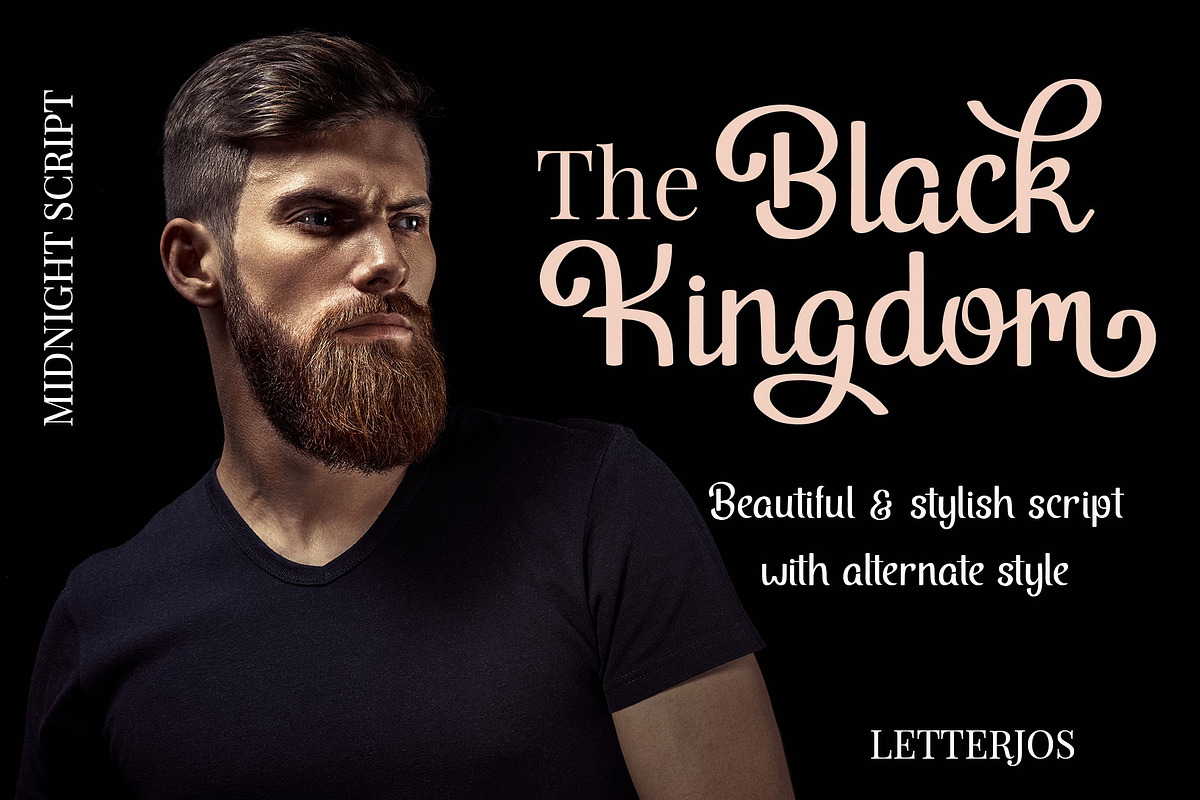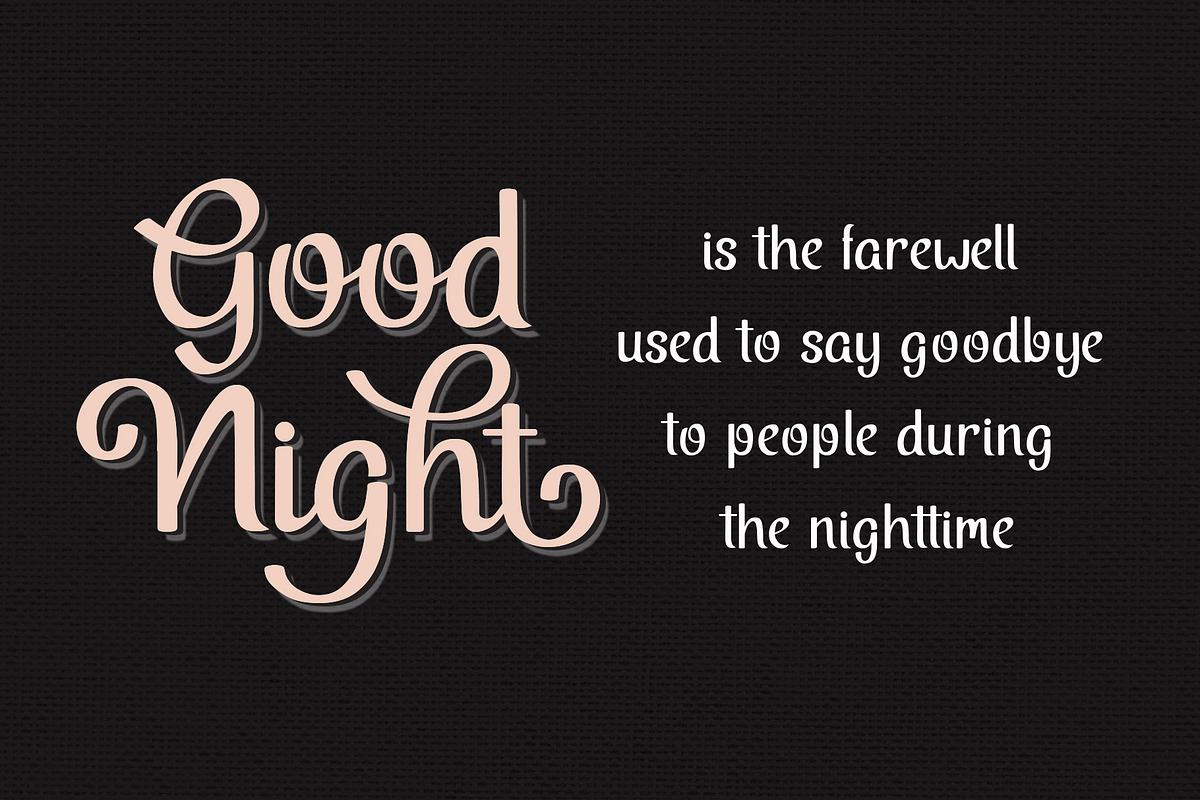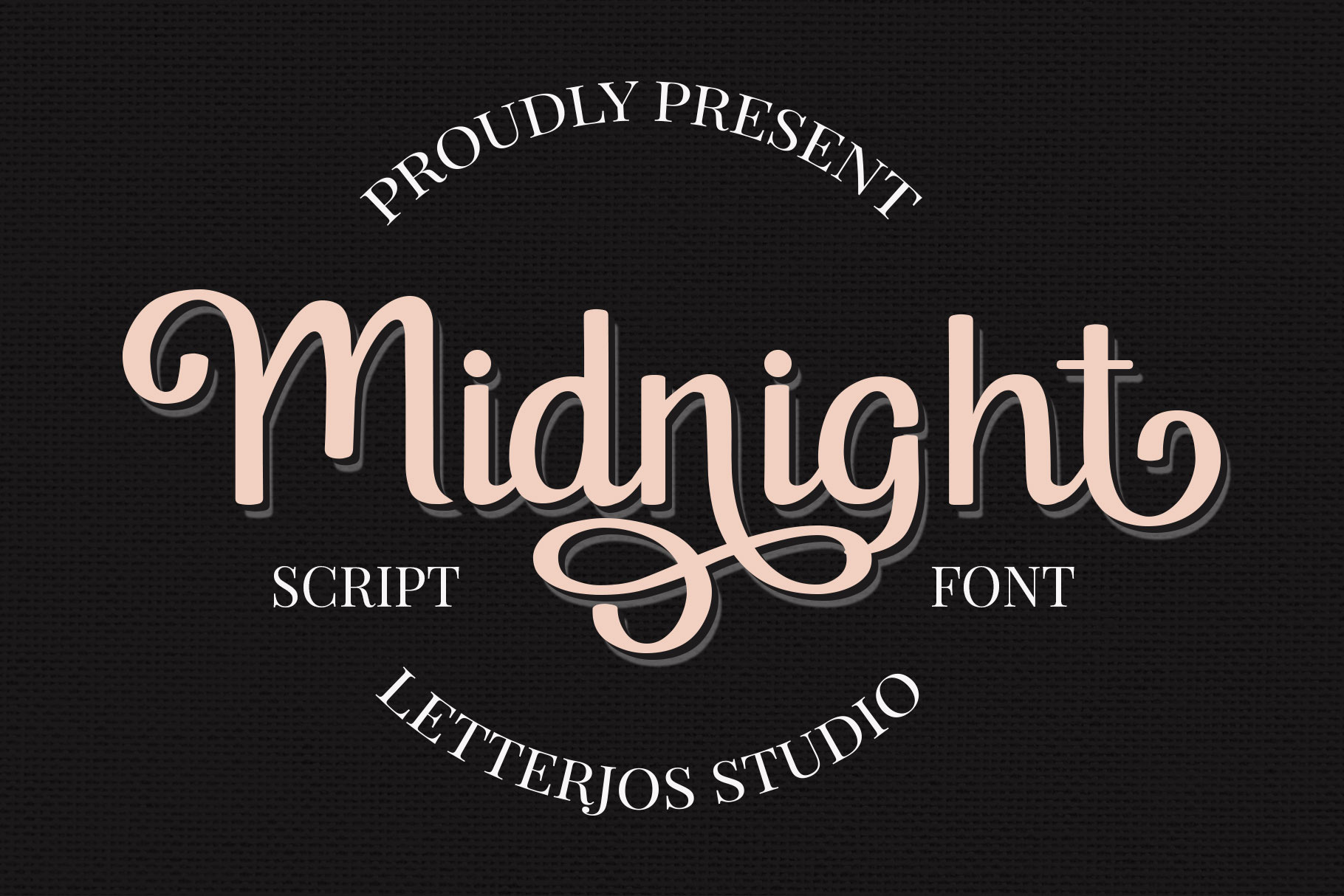
Midnight Script Font
Midnight is beautiful and elegant script font. This script font come with 2 style and alternate to make its style more beautiful, unique and elegant.
Midnight script font will be perfect for your projects such as quotes, apparel, poster design, personal branding, promotional materials, logotype, product packaging, etc.
Foreign Languages Support: ÀÁÂÃÄÅÇÈÉÊËÌÍÎÏÑÒÓÔÕÖØÙÚÛÜÝßàáâãäåæçèéêëìíîïñòóôõöøùúûüýÿ